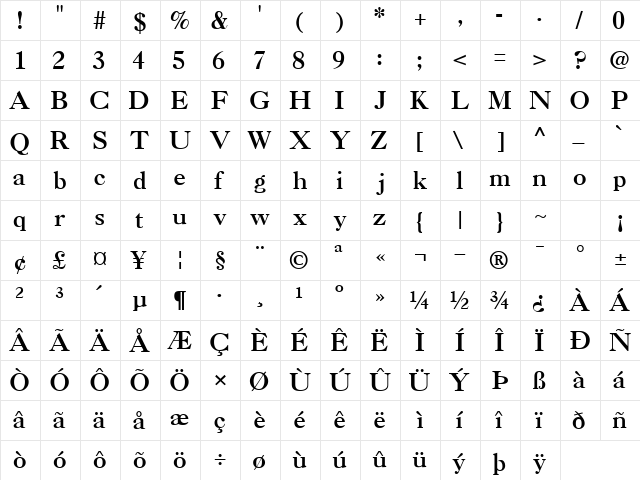
CaslonThreeSSK Regular
Design Context for CaslonThreeSSK Typeface
CaslonThreeSSK takes a measured approach to typography — its balanced proportions and neutral character make it a reliable workhorse for both digital and print work.